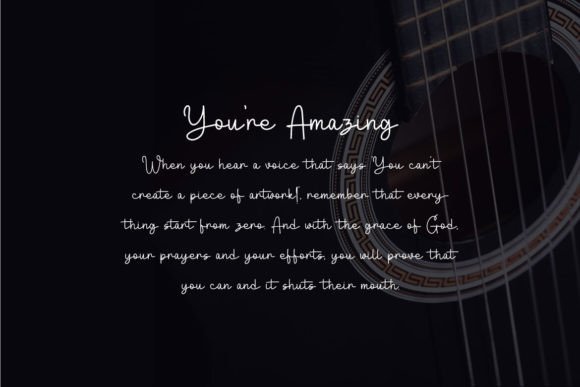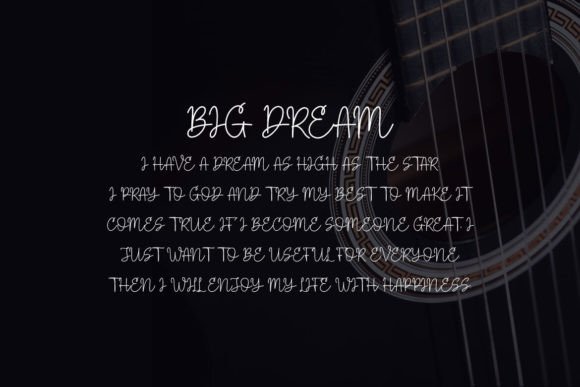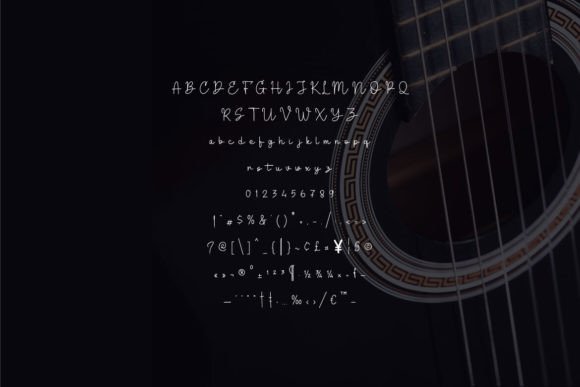
Introduction to Fabionica Font
Have you ever been stuck on a design project, searching for that perfect font to bring your vision to life? As a designer, you know the struggle is real. You pour your heart and soul into a project, only to have it fall flat without the right font. That’s where the Fabionica Font comes in – a game-changing, high-quality font that will elevate your designs and leave a lasting impression.
With its elegant, handwritten script and organic strokes, the Fabionica Font is the perfect addition to any design resource. Whether you’re working on a creative project that requires a touch of sophistication or a free download that needs a dash of personality, this font is sure to deliver. Plus, with its transparent background, you can easily combine it with other design elements to create a cohesive look that’s all your own.
Key Features of Fabionica Font
- High-quality design resource ideal for creative projects, with a unique and elegant style.
- Transparent background option allows for easy customization and versatility in design.
- Features a high-resolution design (at least 300 DPI) for crisp and clear display in various mediums.
- Perfect for designers seeking a sophisticated and refined look for their projects, from branding to editorial content.
Honest Review: Fabionica Font
As a designer, I’m always on the lookout for high-quality design resources that can elevate my creative projects. The Fabionica Font has caught my attention, and I’m excited to share my honest review with you.
- ✨ Unique and elegant design: The Fabionica Font features a beautiful, hand-drawn aesthetic that’s perfect for adding a touch of sophistication to your designs.
- ✨ High-quality graphics: The font is well-crafted and boasts high-quality graphics, making it ideal for print or digital applications.
- ✨ Transparent background: The font’s transparent background makes it easy to use in designs where a clear background is required.
- ⚠️ Limited font styles: While the Fabionica Font is beautiful, it’s limited to a single style, which might not be suitable for designers who need a more comprehensive font collection.
- ⚠️ Limited language support: The font only supports a limited range of languages, which might be a drawback for designers who need to work with multiple languages.
Overall, the Fabionica Font is a great addition to any designer’s toolkit. While it has some limitations, its unique design and high-quality graphics make it a valuable resource for creative projects. If you’re looking for a beautiful and elegant font, the Fabionica Font is definitely worth considering.
The Fabionica Font is suitable for various creative projects, including logo design, branding, and visual identity. It’s also ideal for creating engaging social media graphics, posters, and flyers.